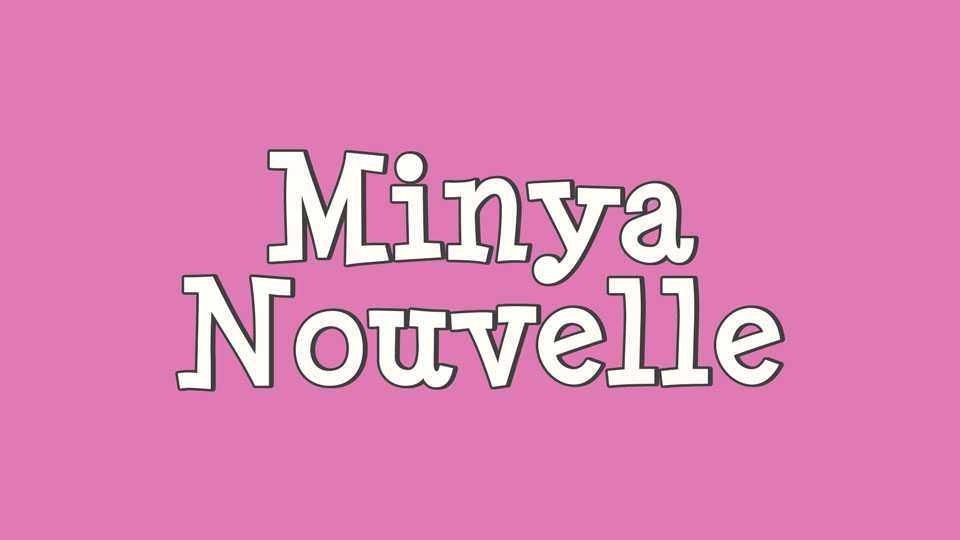
Download Minya Nouvelle font, a lively cartoon typeface inspired by classic typewriters, blending brawny slab serifs with a dash of fun-loving curls.